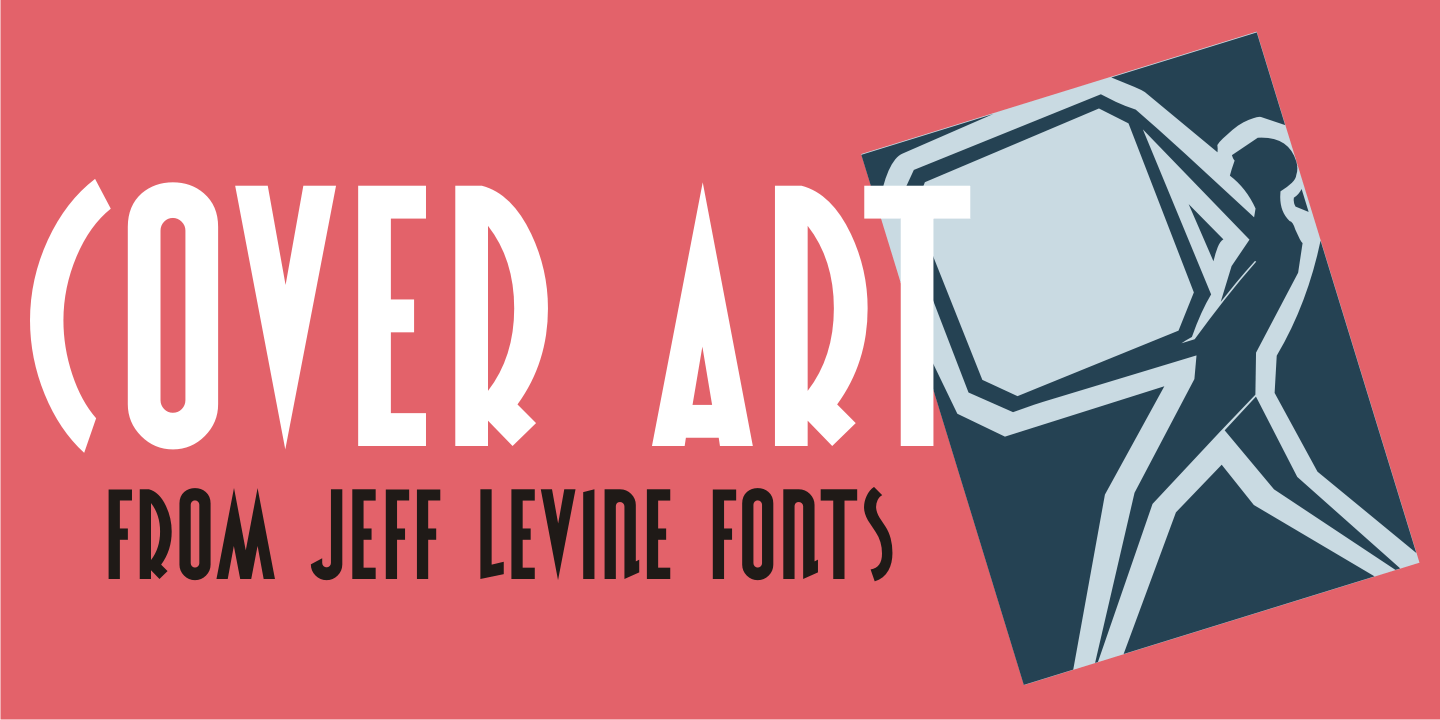
Cover Art
Cover Art JNL was inspired by the hand-lettered sans serif title of an Art Deco era Portuguese magazine called Ilustraçáo. The mix of conventional and non-conventional letter forms made it a perfect candidate to turn into a digital font.
Cover Art JNL Regular by Jeff Levine Fonts